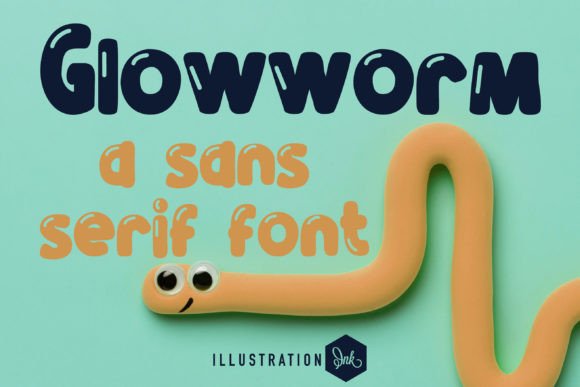
Introducing Glowworm Font: A Hand-Crafted Sans Serif for Bold Statements
The world of typography is vast and diverse, offering a multitude of font styles to suit various design needs. Among these, hand-crafted fonts hold a special place for their unique, personalized touch. They mimic the imperfections and warmth of handwriting, making them ideal for projects that require a human feel. One such font that has gained attention for its distinctive characteristics is the Glowworm Font. This article will delve into the specifics of the Glowworm Font, a chunky, rounded sans serif font that makes a bold statement with its big, bold lettering. We will also explore the concept of hand-crafted fonts, their applications, and why they are favored in design projects.
What is Glowworm Font?
Glowworm Font is a hand-crafted sans serif font that stands out for its chunky, rounded letters. It is designed to make a statement with its big, bold lettering, making it perfect for projects that require emphasis and visibility. The font comes in a standard version and a highlighted version, offering versatility in design applications. The highlighted version adds an extra layer of depth and appeal, making it suitable for projects that need to grab attention.
The design of Glowworm Font is inspired by the warmth and imperfections of handwriting. It brings a friendly and approachable feel to any project, making it suitable for a wide range of applications. Whether you’re working on an invitation, a greeting card, or a digital platform, Glowworm Font can add a personal touch that sets your design apart.
The Charm of Hand-Crafted Fonts
Hand-crafted fonts, by definition, are designed to mimic the look of handwriting. They are created to look as if they were written by hand, often with the same imperfections and quirks that make handwriting unique. This characteristic makes hand-crafted fonts highly sought after for projects that require a personal touch.
Types of Hand-Crafted Fonts
Hand-crafted fonts can range from formal to informal, depending on their design. Formal hand-crafted fonts might be used for wedding invitations or formal event announcements, offering an elegant and sophisticated feel. On the other hand, informal hand-crafted fonts can be playful and whimsical, making them perfect for greeting cards, children’s books, or social media graphics.
Applications of Hand-Crafted Fonts
The applications of hand-crafted fonts are vast. They are commonly used in:
- Invitations and greeting cards for a personal touch
- Branding and packaging to stand out
- Digital content, such as blogs and social media posts, to add personality
- Advertising and marketing materials for a unique appeal
- Children’s books and educational materials for a friendly feel
Hand-crafted fonts like Glowworm Font are versatile and can be adapted to various design needs. Their unique charm lies in their ability to convey emotion and personality, making them a valuable asset in any design project.
Using Glowworm Font in Your Designs
Glowworm Font, with its chunky and rounded letters, is perfect for projects that need to make a bold statement. Here are some tips on how to use Glowworm Font effectively in your designs:
Pairing with Other Fonts
To create visual interest, consider pairing Glowworm Font with other fonts that complement its bold and rounded style. A sans serif font with a lighter weight can provide a nice contrast, making your design more dynamic.
Choosing the Right Color
The color of your text can significantly impact the visibility and appeal of Glowworm Font. For a highlighted version, consider using bright and contrasting colors to make the text pop. For the standard version, more subdued colors can provide a sophisticated look.
Adjusting Font Size
The impact of Glowworm Font can be adjusted by changing the font size. Larger sizes are perfect for headlines and titles, while smaller sizes can be used for body text or captions. Experiment with different sizes to find the right balance for your design.
The Benefits of Using Hand-Crafted Fonts
Hand-crafted fonts like Glowworm Font offer several benefits that make them a popular choice among designers:
- Uniqueness: Each hand-crafted font has its unique character, providing a distinctive look that sets it apart from more traditional fonts.
- Personality: Hand-crafted fonts can convey emotion and personality, making them ideal for projects that require a human touch.
- Versatility: They can be used in a variety of applications, from formal to informal projects.
- Engagement: The personal and often whimsical nature of hand-crafted fonts can engage audiences more effectively than standard fonts.
By incorporating hand-crafted fonts into your designs, you can create more engaging, unique, and memorable projects.
Glowworm Font is a remarkable hand-crafted sans serif font that offers a bold and unique look for various design projects. Its chunky, rounded letters and highlighted version make it versatile and appealing. Hand-crafted fonts like Glowworm Font bring a personal touch to designs, making them stand out in a world dominated by standard typography.
Whether you’re a professional designer or someone who loves to dabble in design, exploring hand-crafted fonts can open up new possibilities for creativity and expression. With its distinctive charm and versatility, Glowworm Font is sure to make a statement in any project it’s used in.